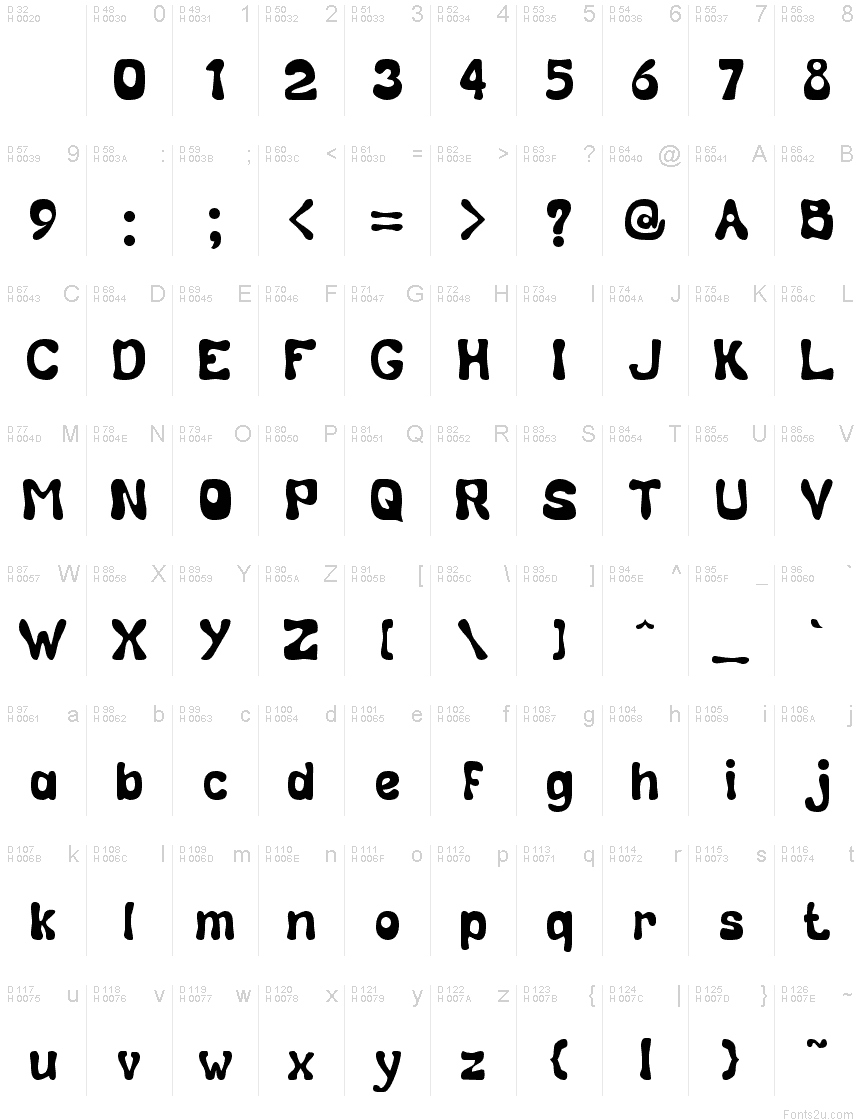
Calebasse (Unregistered)
Calebasse font by M. Bujardet is a free comic display font with a wonderfully swollen, rubbery rhythm. Its heavy, rounded strokes wobble just enough to feel hand-drawn, giving headlines a mischievous bounce instead of a stiff cartoon look.
Using Calebasse works beautifully for kids’ book covers, playful logos, candy packaging, party invitations, comic titles, classroom posters, and quirky social graphics. Keep Calebasse large so those chunky shapes can breathe, and pair this free font with a plain sans like Montserrat for clean supporting text.